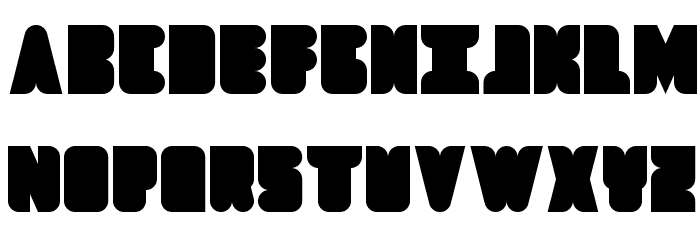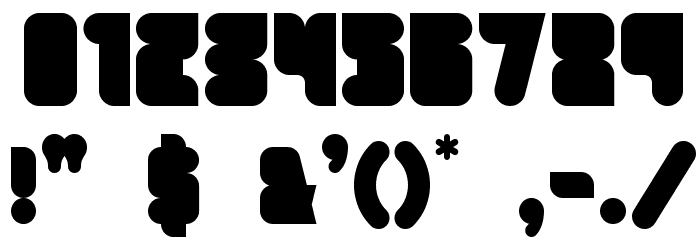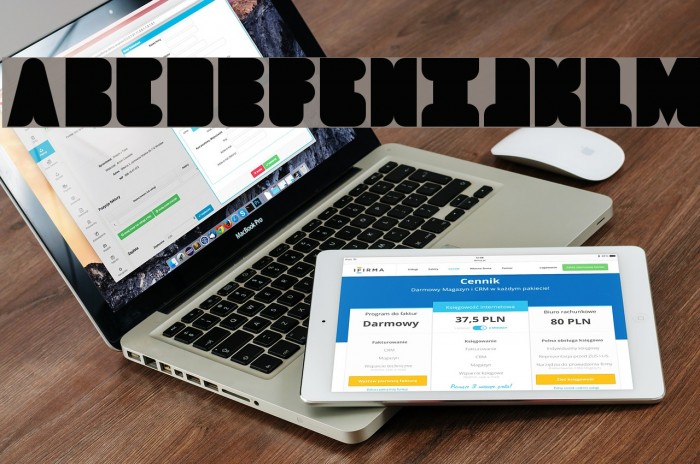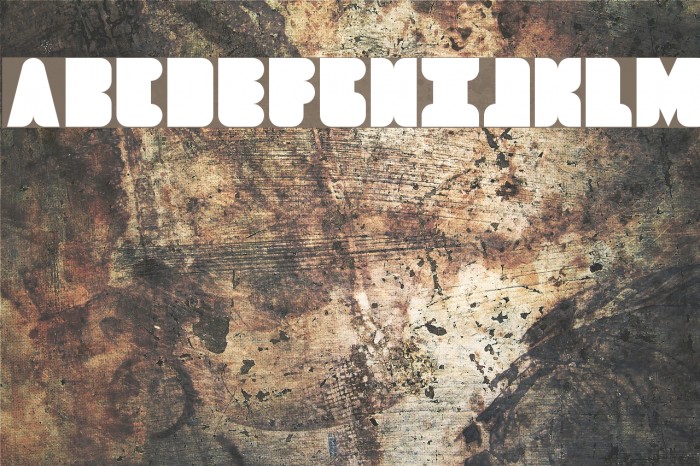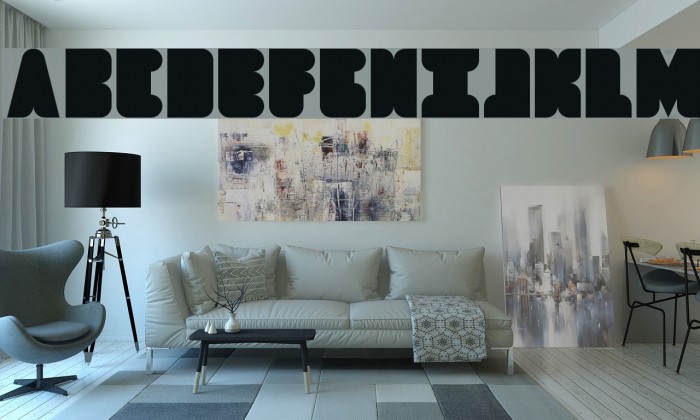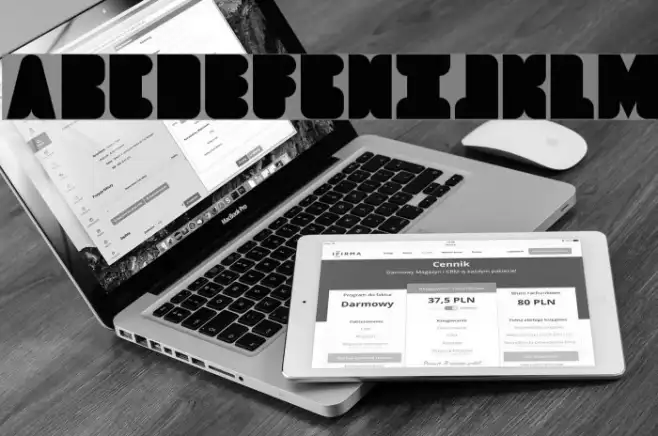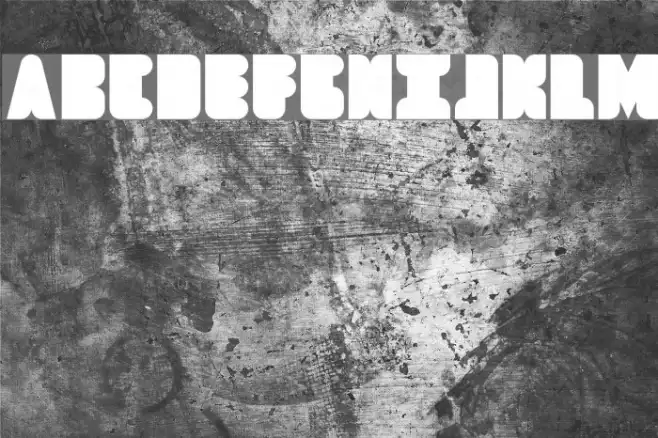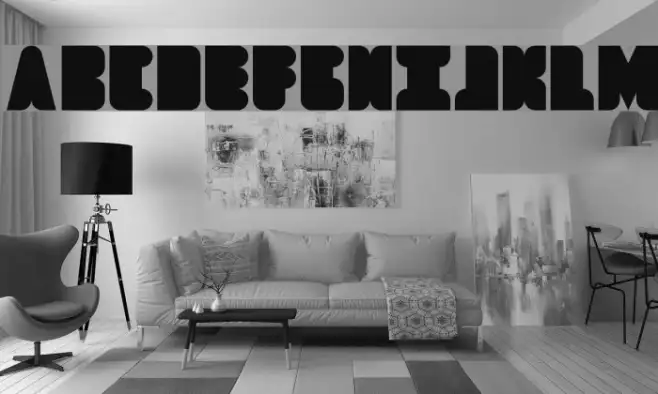
Dropship Font
This font features a bold, geometric design with thick, block-like characters. The letters are uniformly wide, creating a strong and impactful visual presence. The style is reminiscent of stencil or industrial fonts, with a modern twist. The characters have a consistent weight throughout, with minimal contrast between strokes. This design choice emphasizes the boldness and solidity of the font, making it ideal for attention-grabbing headlines or display purposes. The spacing between characters is tight, contributing to the compact and cohesive appearance of the text.
A bold, geometric font with block-like characters and tight spacing.
- Proposed Projects: Ideal for posters, logos, branding, and any project requiring a strong visual impact.
- Character Spacing: Tight